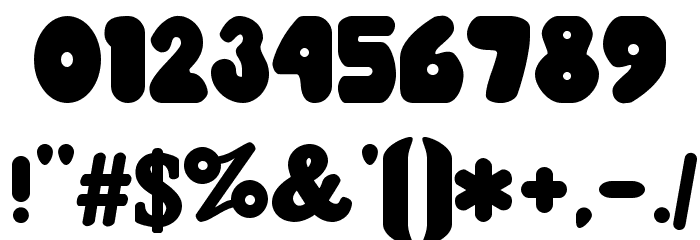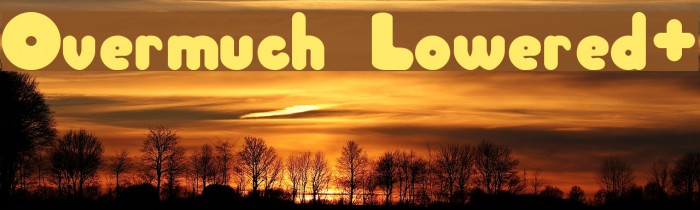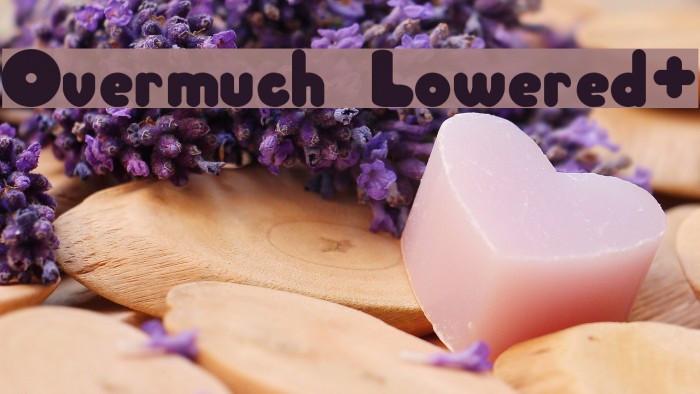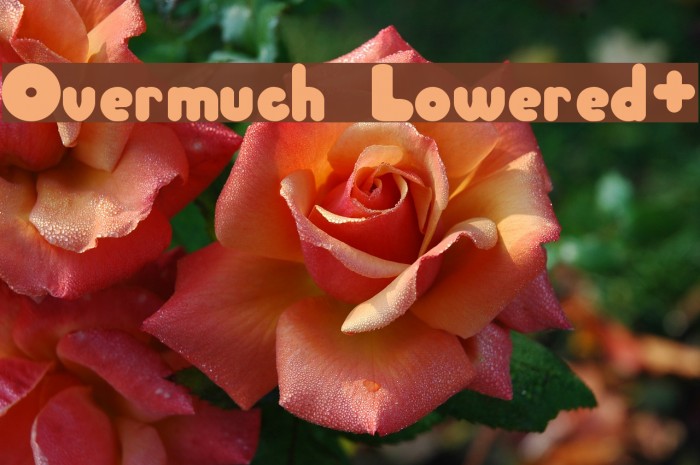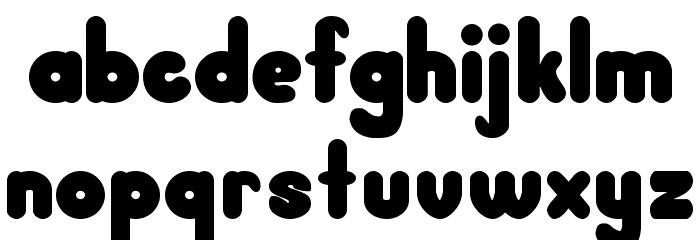
Overmuch Lowered+ Font
This font features a bold and playful style with rounded edges and a bubbly appearance. The characters are thick and have a uniform weight, giving them a strong presence on the page. The rounded forms and lack of sharp angles contribute to a friendly and approachable look, making it suitable for informal and fun design projects. The numbers and special characters maintain the same playful aesthetic, ensuring consistency across all text elements. The font's overall style is modern and decorative, with a focus on creating a lively and engaging visual impact.
A bold, playful font with rounded edges and a bubbly appearance.
• Proposed Projects: Ideal for children's books, playful branding, party invitations, and posters.
• Category: Decorative/Display
• Bold: Yes
• Italic: No
• Weight: Bold
• Width: Normal
• Character Spacing: Normal
• Contrast: Low
• Overall Style: Modern, Decorative
• Use Case: Headlines, Logos, Posters